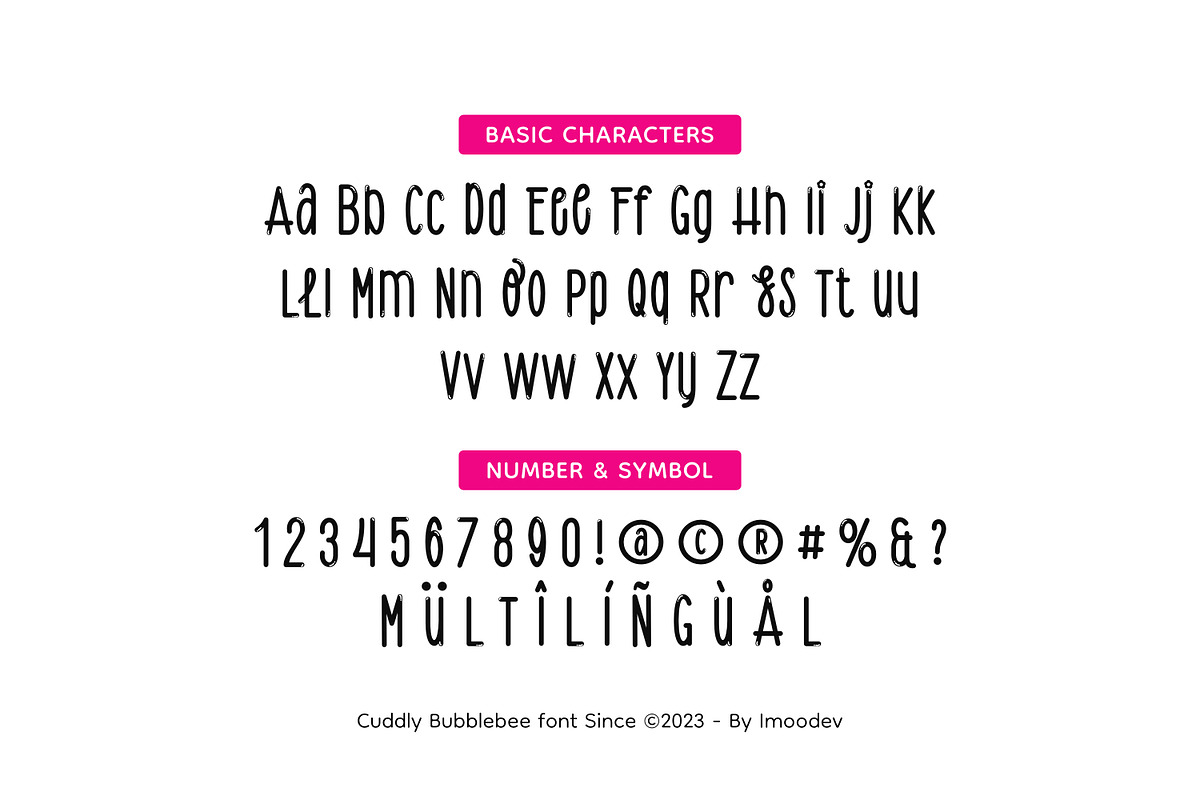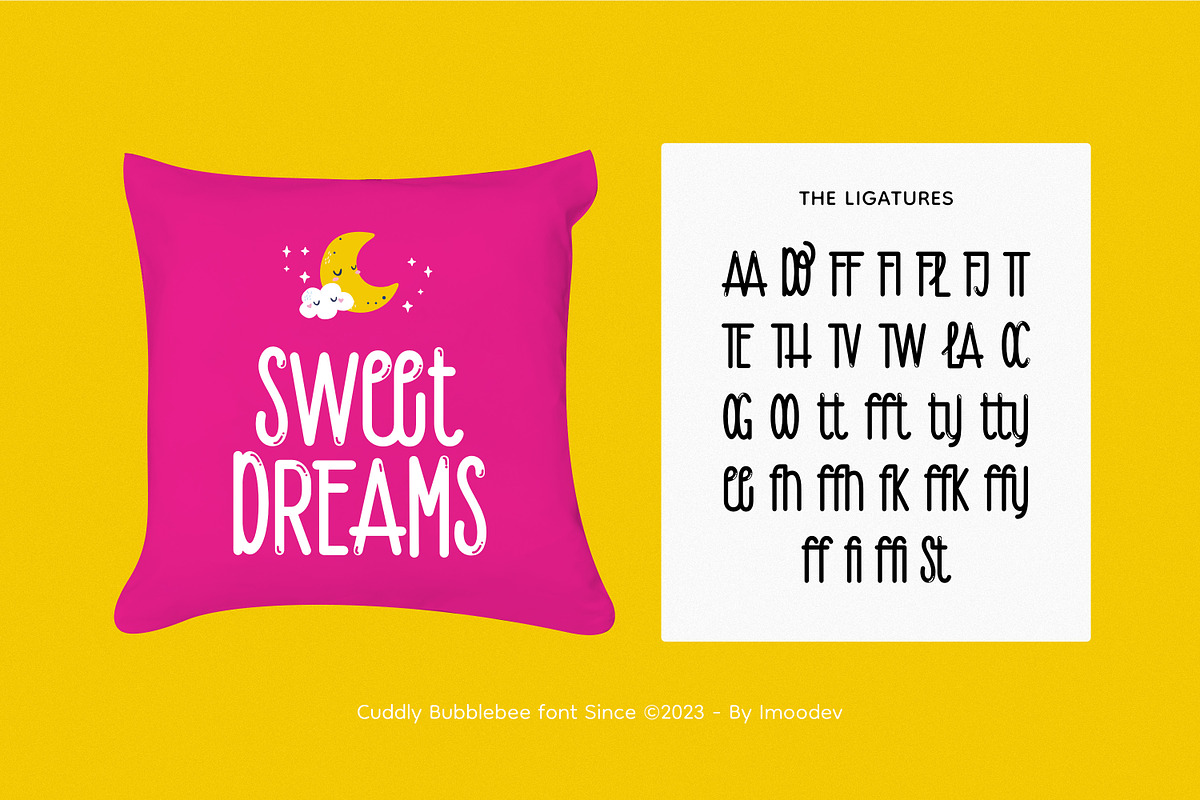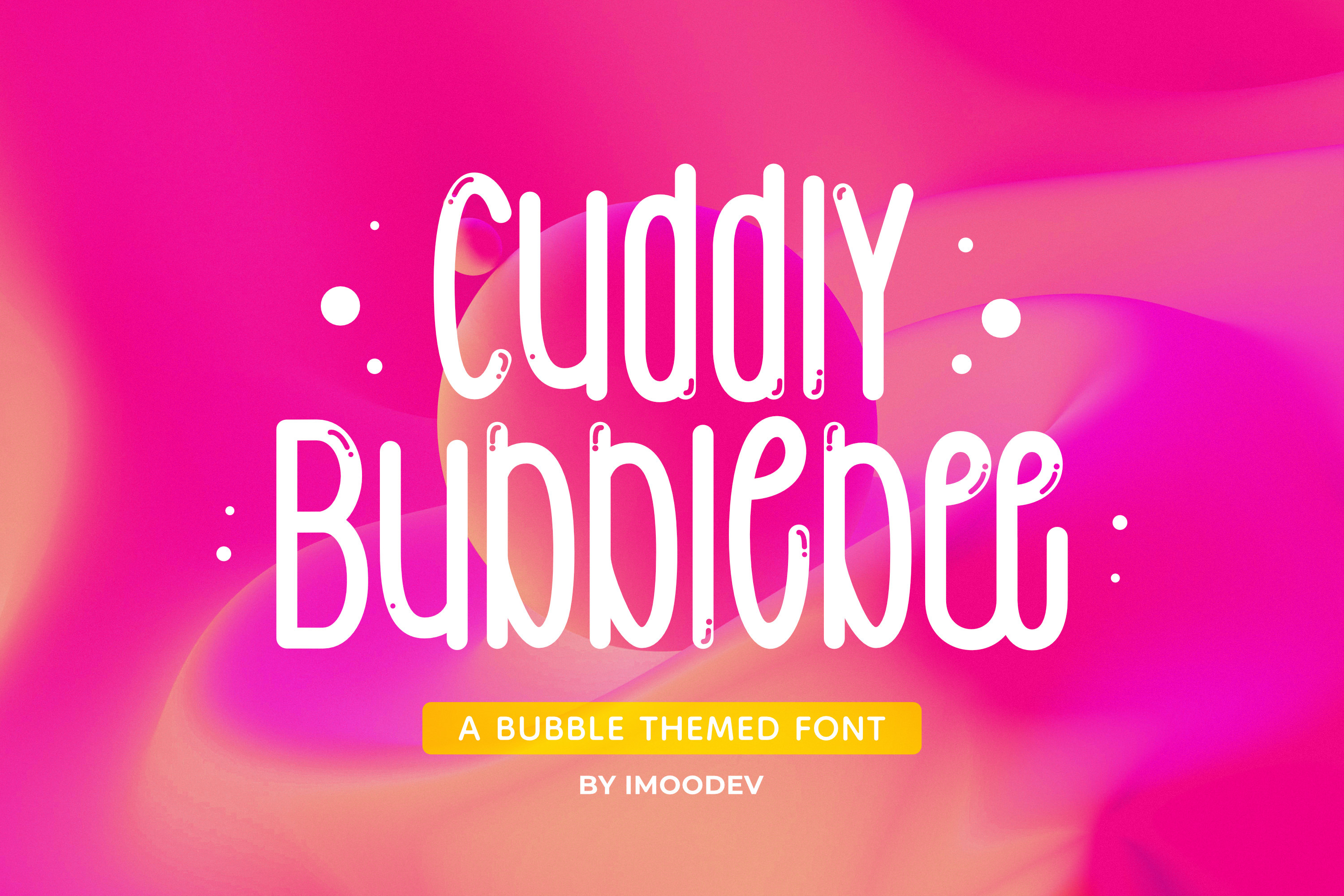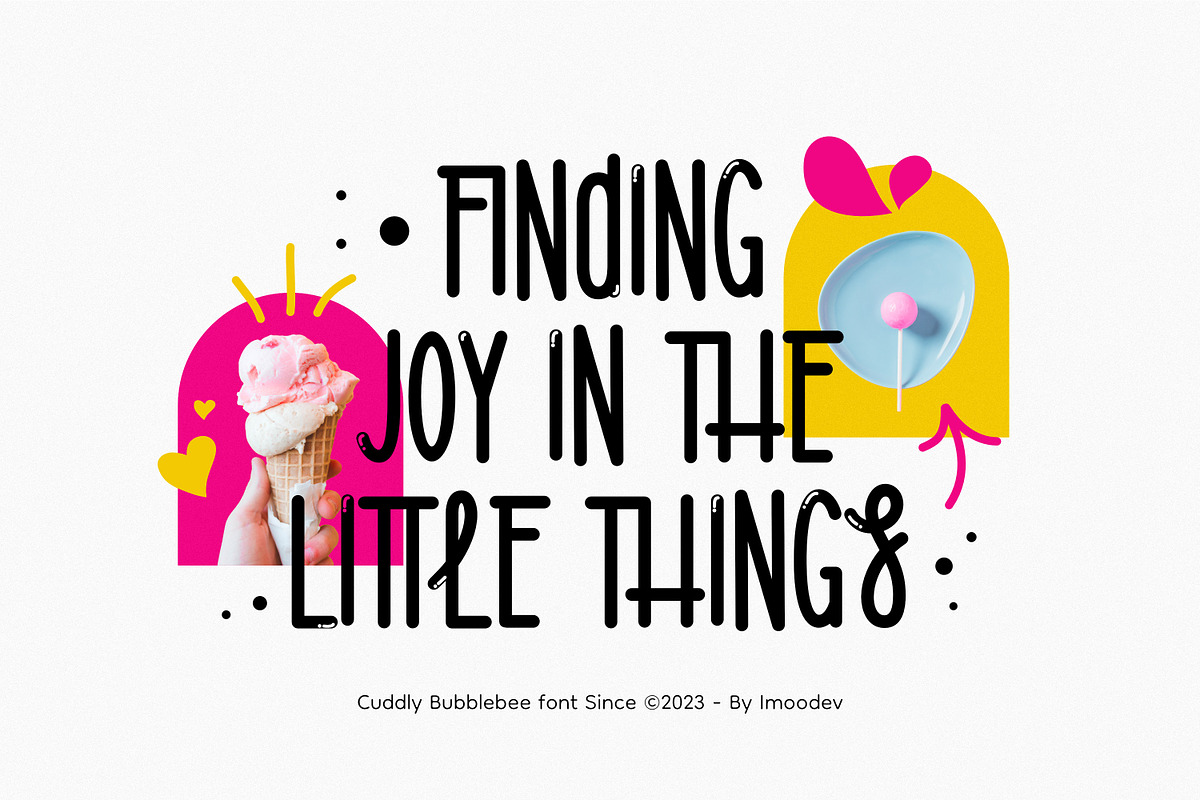
Cuddly Bubblebee - Playful Typeface
Cuddly Bubblebee is a cheerful bubble style font with simple sans serif characters, rounded monoline shapes, and small dotted decorations integrated into the letters, creating a bubbly feel.
Its cute lettering makes this font especially appealing for children's projects, party invitations, playful branding, greeting cards, children's books, merchandise, social media graphics, nursery decor, and anything that calls for a cheerful and friendly vibe.
- Uppercase and Lowecase Characters.
- PUA Encoded Characters.
- Numerals and Punctuations.
- Alternates and Ligatures.
- Multilingual Support.